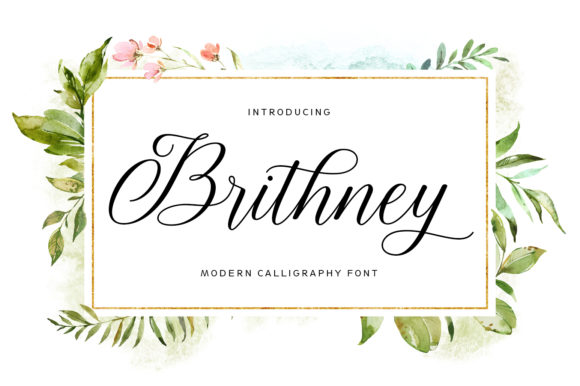
The Ultimate Guide to Brithney Font: Elevate Your Designs with a Friendly and Versatile Script
I’ll never forget the time I was working on a DIY project for a client’s wedding invitation. I had the design concept nailed down, but I was struggling to find the perfect font to bring it all together. That’s when I stumbled upon Brithney Font, a cute and casual handwritten script that instantly captured the friendly and playful vibe I was going for. With its gorgeous swashes and ligatures, Brithney turned my design from ordinary to extraordinary. In this article, I’ll share my love for Brithney Font, its features, and how to make the most of it in your designs.
An Honest Review of Brithney Font
What I Love About Brithney Font
- ✨ Incredibly friendly feel: Brithney’s casual and approachable style makes it perfect for designs that require a personal touch.
- ✅ Gorgeous swashes and ligatures: The font’s beautiful swashes and ligatures add a touch of elegance and sophistication to any design.
- 💫 Versatile: Brithney can be used for a wide range of projects, from Instagram graphics to calligraphy scripts for DIY projects.
While Brithney Font is an amazing script, there are a few things to keep in mind:
- ⚠️ Some characters may require manual adjustment: Due to the font’s handwritten nature, some characters may need to be adjusted manually to ensure proper spacing and alignment.
- 🤔 Not suitable for very formal designs: Brithney’s casual style may not be the best fit for very formal or professional designs, such as corporate logos or business cards.
A Practical Guide to Using Brithney Font
The Story Behind Brithney Font
Brithney Font was designed with the intention of creating a friendly and approachable script that could be used for a wide range of creative projects. The designer wanted to create a font that would evoke a sense of warmth and personality, making it perfect for designers, crafters, and creative hobbyists.
| Font Name | Brithney Font |
| Author | fargunstudio |
Q: What is Brithney Font?
A: Brithney Font is a cute and casual handwritten font with an incredibly friendly feel, featuring gorgeous swashes and ligatures.
Q: What can I use Brithney Font for?
A: Brithney Font is versatile and can be used for a wide range of projects, from Instagram graphics to calligraphy scripts for DIY projects.
Q: Is Brithney Font suitable for formal designs?
A: No, Brithney Font’s casual style may not be the best fit for very formal or professional designs, such as corporate logos or business cards.